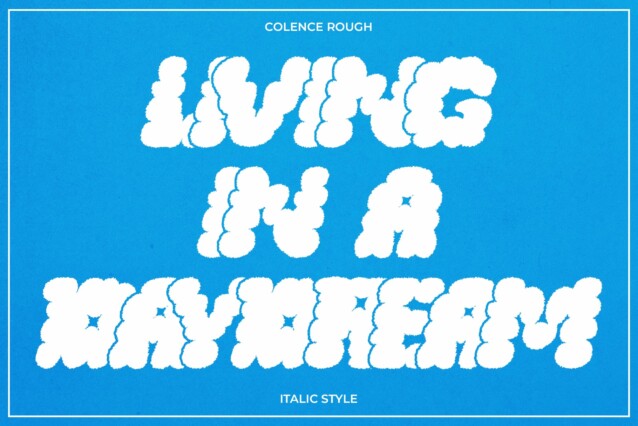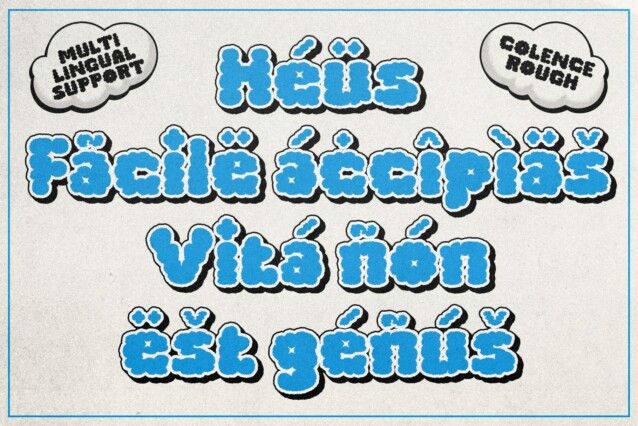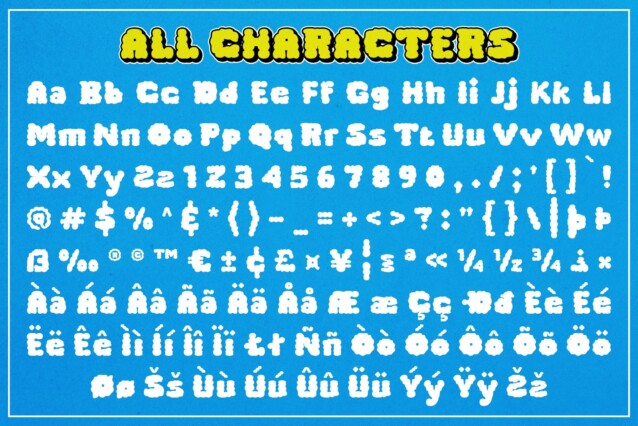
Colence Rough Font is a cloud-like bubble display font that exudes a cute, funky, and cheerful vibe. The rounded, soft letterforms resemble clouds, creating a playful and joyful atmosphere that brings imagination to life.